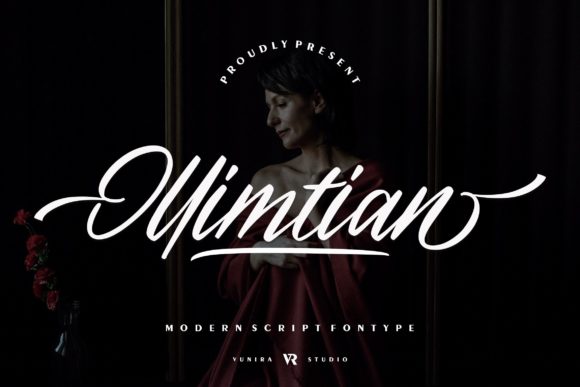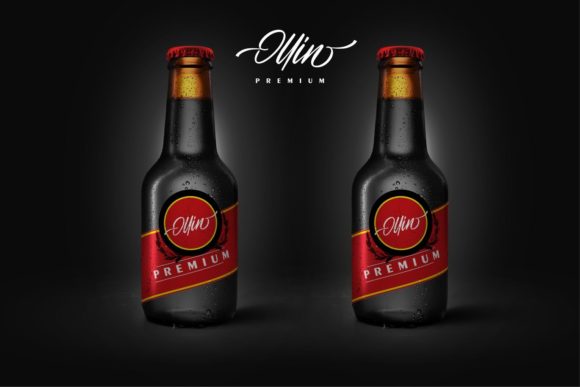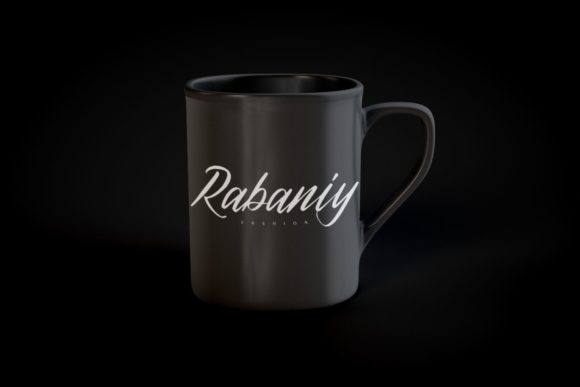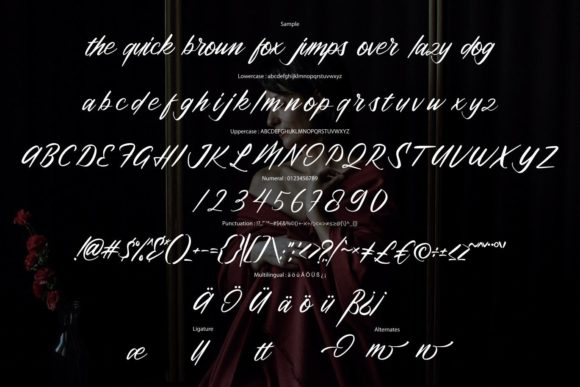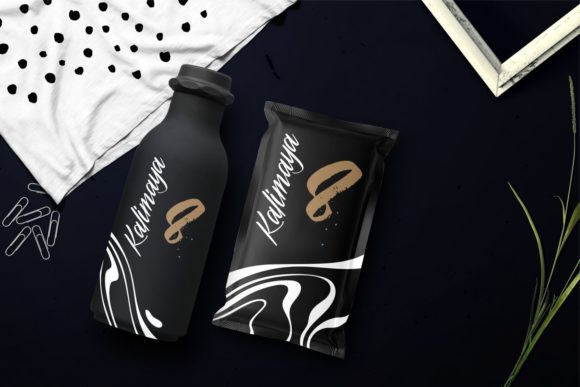
Ollimtian Font
“Ollimtian” is an enchanting handwritten font that brings a touch of charm to your creative projects. This versatile script font offers a wide spectrum of applications, making it suitable for greeting cards, headlines, and more. It is guaranteed to add a romantic and whimsical feel to your next project.
The enchanting nature of “Ollimtian” lies in its handwritten style, which infuses a sense of warmth and personality into your designs. Whether you’re working on romantic greeting cards, captivating headlines, or any other creative endeavor, this font contributes a romantic and expressive touch.
The versatility of this script font allows it to adapt seamlessly to different design contexts, ensuring that it enhances the overall aesthetic of your projects. Its enchanting quality makes it a valuable asset for designers seeking a font that evokes a romantic and whimsical atmosphere.
In summary, “Ollimtian” is more than just a font; it’s an enchanting and versatile tool that adds a romantic feel to your projects. Whether you’re creating greeting cards or eye-catching headlines, let the handwritten charm of “Ollimtian” elevate your designs and create a whimsical atmosphere in your next project.